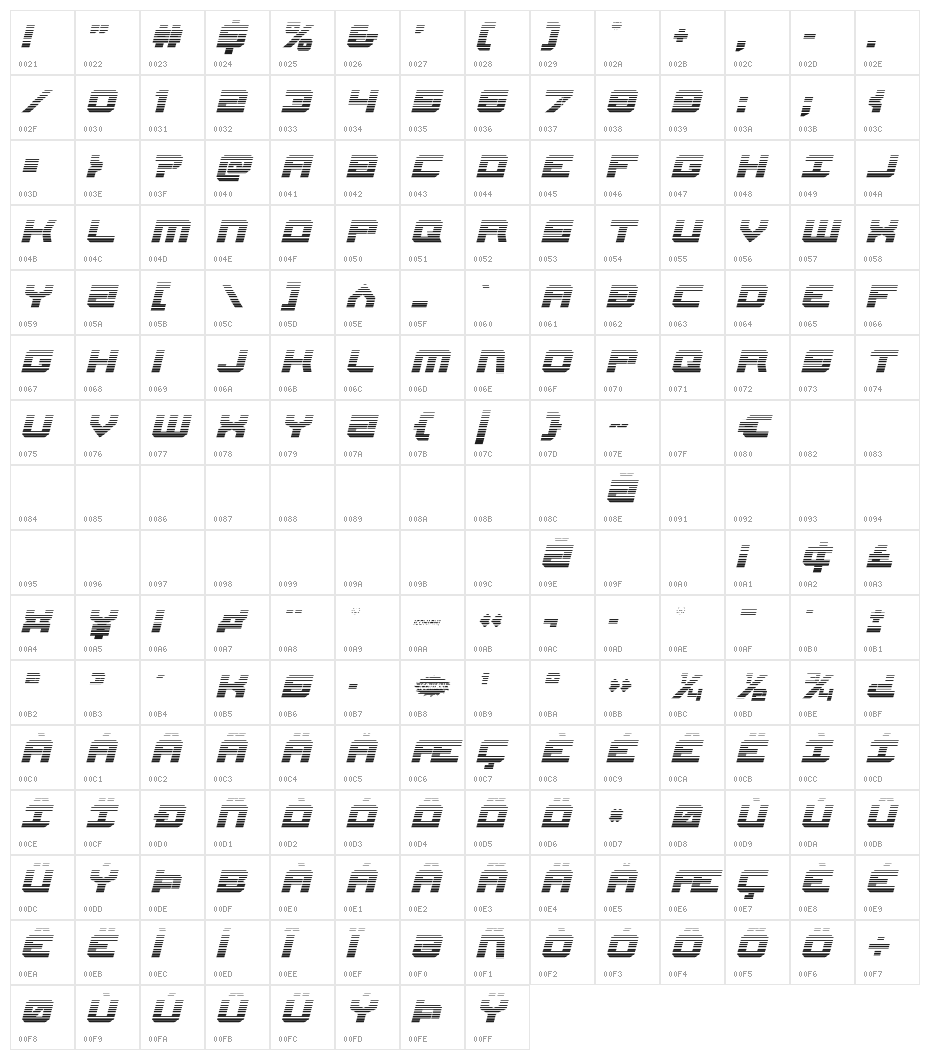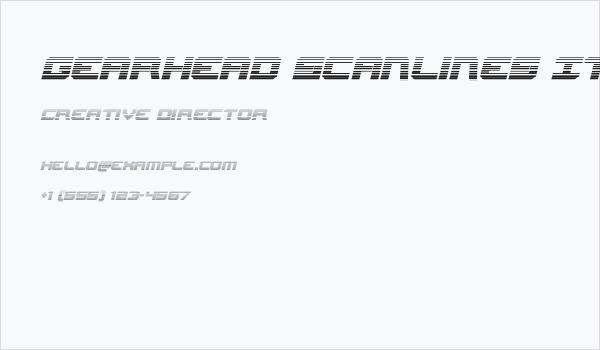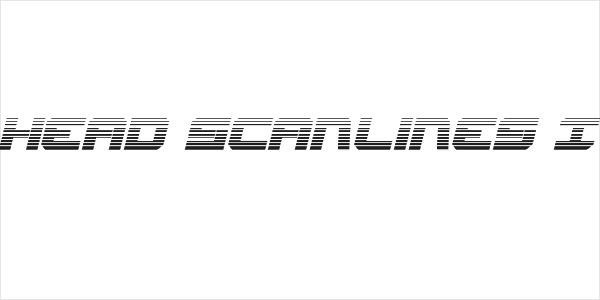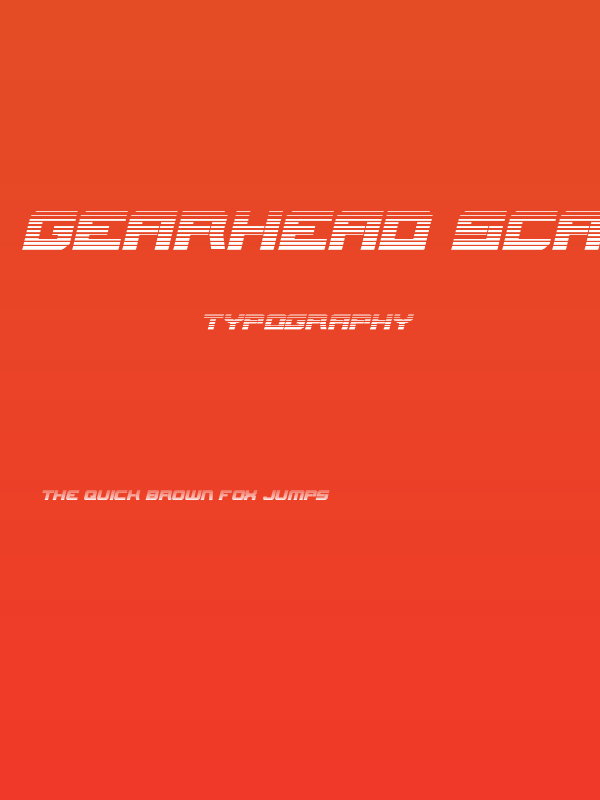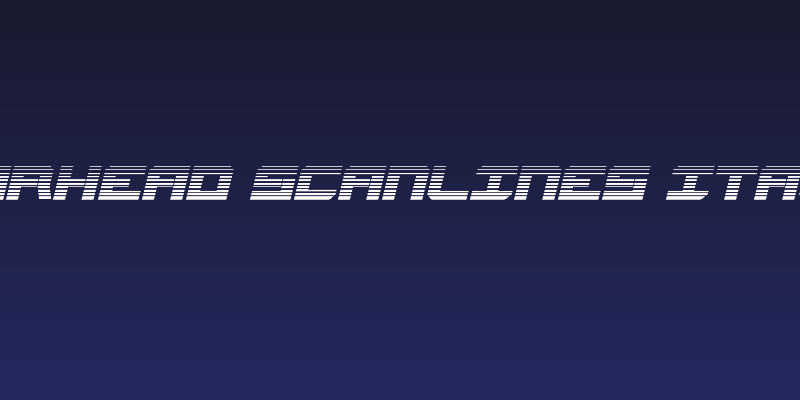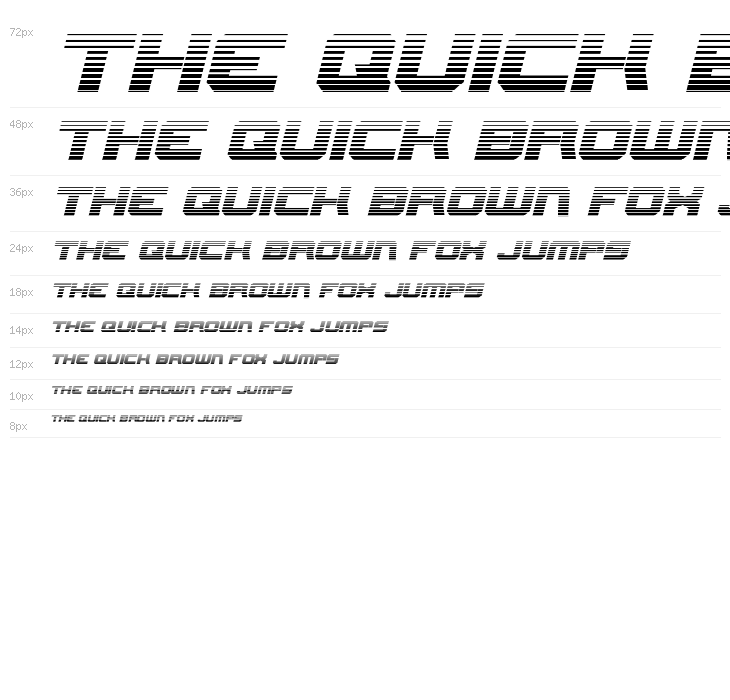
Gearhead Scanlines Italic Font
Gearhead Scanlines Italic Description
This font features a futuristic and dynamic design, characterized by its distinctive scanline pattern that runs horizontally across each character. The italic slant adds a sense of motion and speed, making it ideal for projects that require a modern and tech-savvy aesthetic. The uppercase and lowercase letters maintain a consistent style, with sharp angles and clean lines that enhance readability. Numbers and special characters are designed with the same attention to detail, ensuring a cohesive look throughout. The font's unique style is perfect for digital interfaces, gaming titles, and tech-related branding.